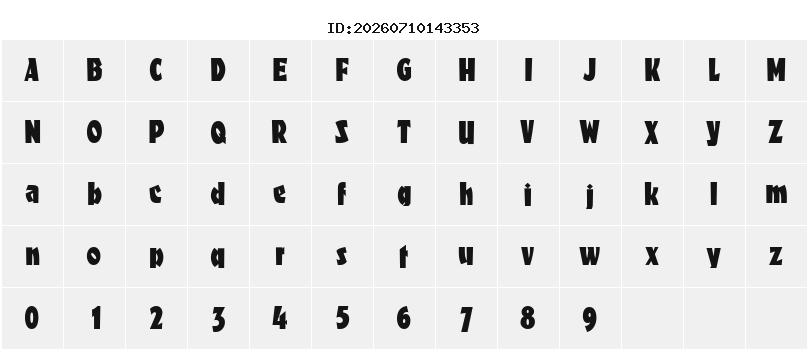
• Font Name: Fancy DB
• Font ID: Alts:Fancy-Regular
• Full Font Name: Fancy-Regular DB
• Version: 1.0 Tue Oct 31 13:20:35 1995
• PostScript Name: Fancy-Regular
• Character Count: 203
About Fancy DB.ttf
Fancy DB.ttf is a modern, elegant sans-serif font designed for ultimate readability and visual harmony. Perfect for branding, headlines, web design, and print materials.